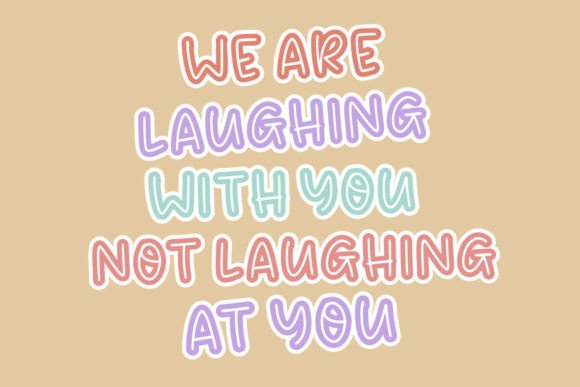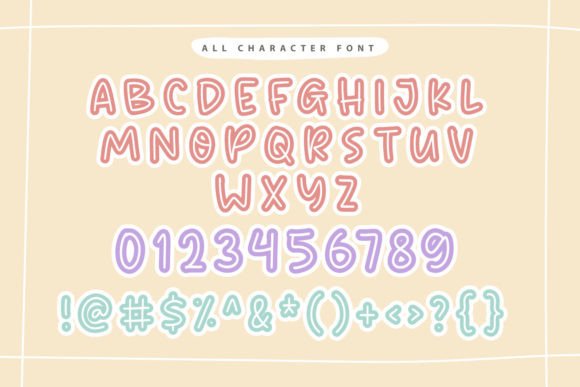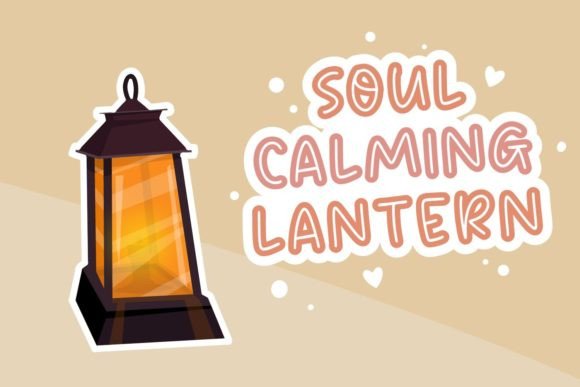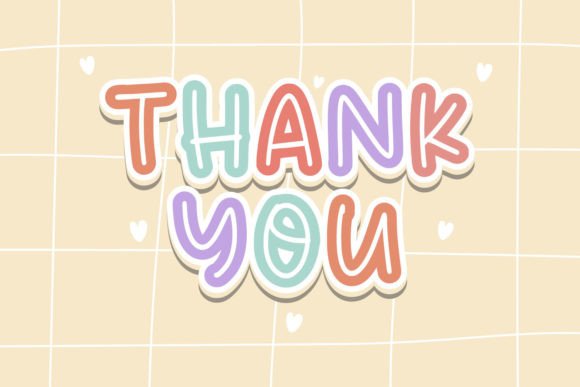
Meria and Fun Font
About Meria and Fun Font
**Meria and Fun**: *Where Cute Meets Trendy*
Meria and Fun is not just a font; it’s a cute and trendy masterpiece that effortlessly combines friendliness, charm, and contemporary style. Meticulously designed to bring a playful feel to your projects, this font is the perfect choice for a wide variety of creative endeavors.
What sets Meria and Fun apart is its remarkable ability to infuse a sense of cuteness and trendiness into your designs. The font’s carefully crafted characters exude an air of authenticity and approachability, making it an ideal choice for projects that require a touch of friendliness and a high level of impact. Meria and Fun is the font that can effortlessly enhance your logos, branding, social media posts, invitations, quotes, stationery, and crafty DIY projects, ensuring they shine with a delightful sense of style.
Meria and Fun strikes the perfect balance between playful aesthetics and modern charm, making it a versatile and invaluable choice for projects that aim to make a friendly and trendy statement.
In logo designs, Meria and Fun adds a unique sense of character and approachability, making them even more memorable and engaging. For branding and social media content, the font’s trendy appeal enhances the visual impact of your content, making it more captivating and shareable. Whether you’re working on digital or print projects, Meria and Fun brings a sense of playfulness and modernity to your creative work.
One of Meria and Fun’s most remarkable qualities is its adaptability. It can seamlessly transition from a laid-back and friendly tone to a more expressive and trendy one, making it suitable for a wide range of creative applications. Its ability to evoke cuteness and trendiness ensures that it remains a cherished choice for designers and creators across diverse industries.
In summary, Meria and Fun is more than just a font; it’s a design asset that masterfully combines cuteness with trendiness. Its friendly characters and contemporary charm position it as an indispensable tool for anyone seeking to infuse their creative projects with a touch of playfulness and modern style. Embrace the cuteness and trendiness of Meria and Fun, and watch your designs come to life with ease and artistic flair, impressing in any context and captivating your audience with its delightful and charming presence.